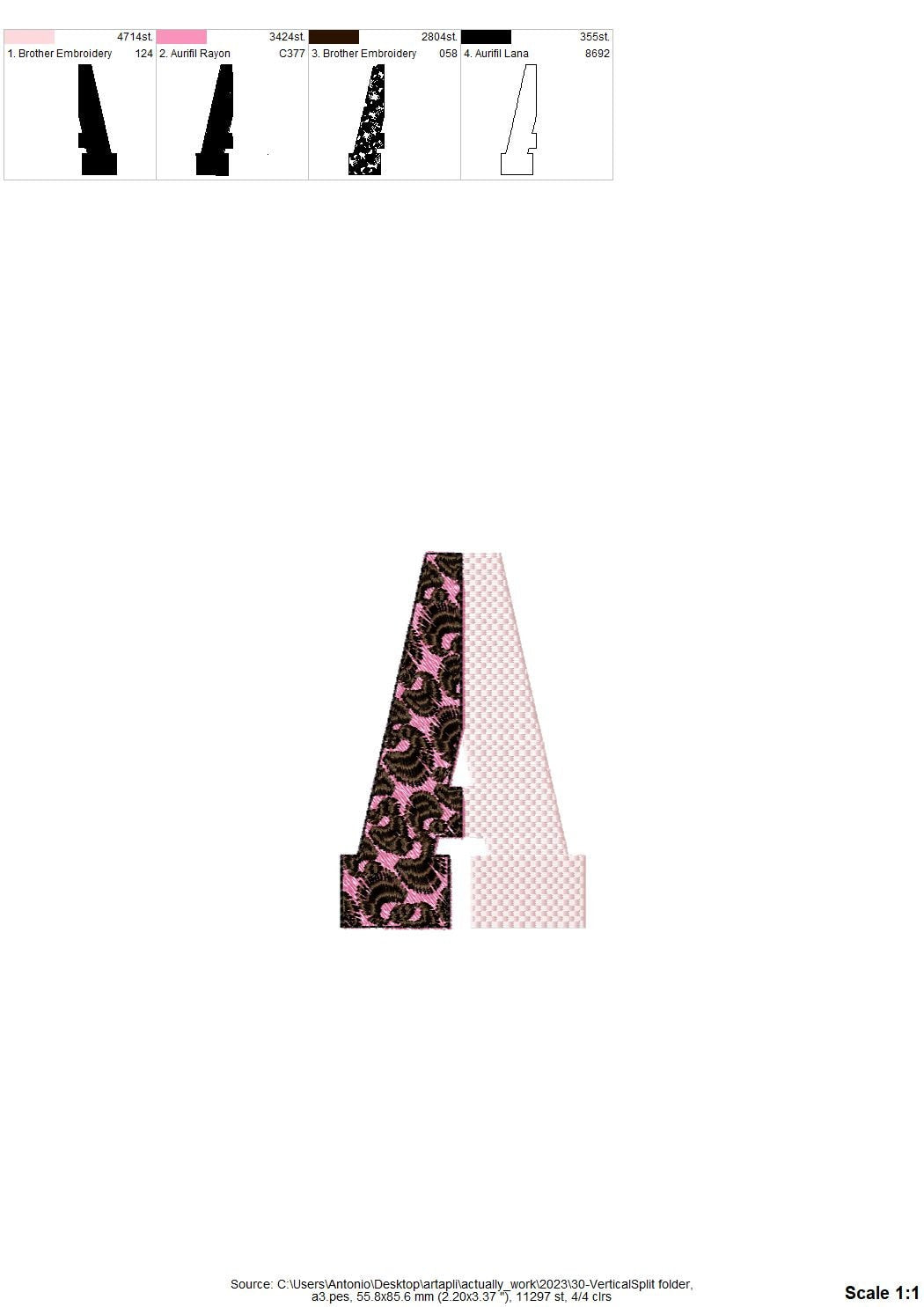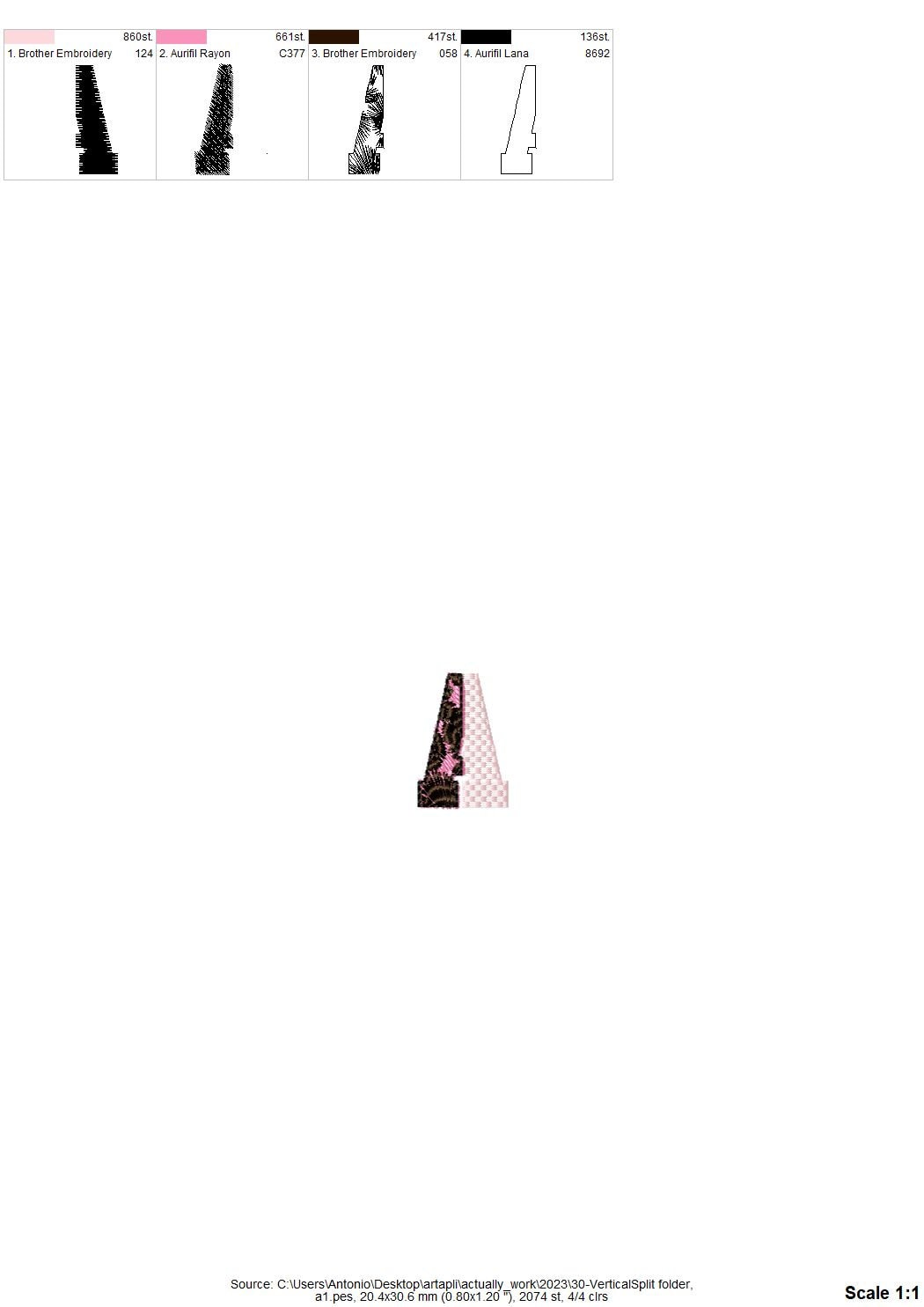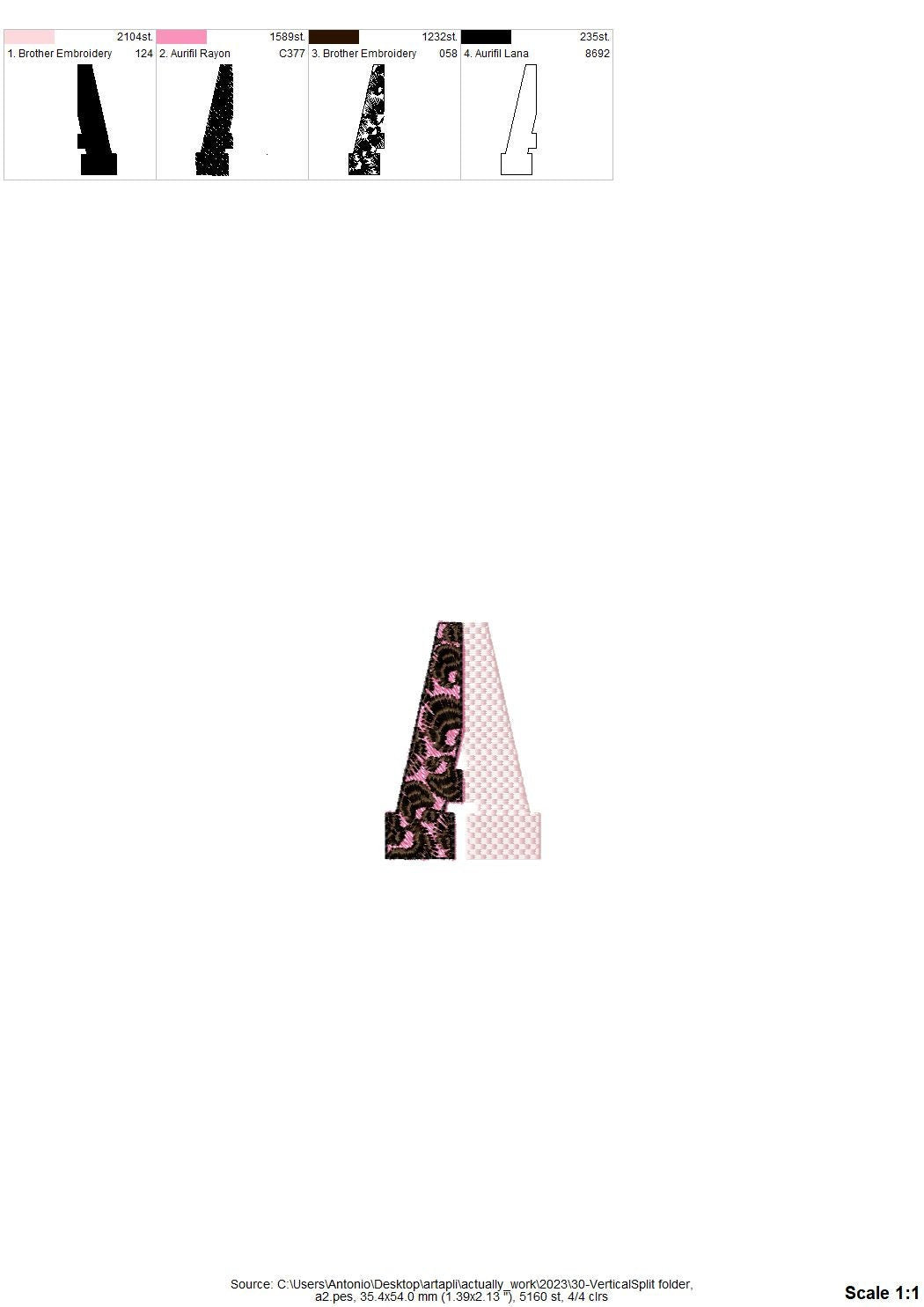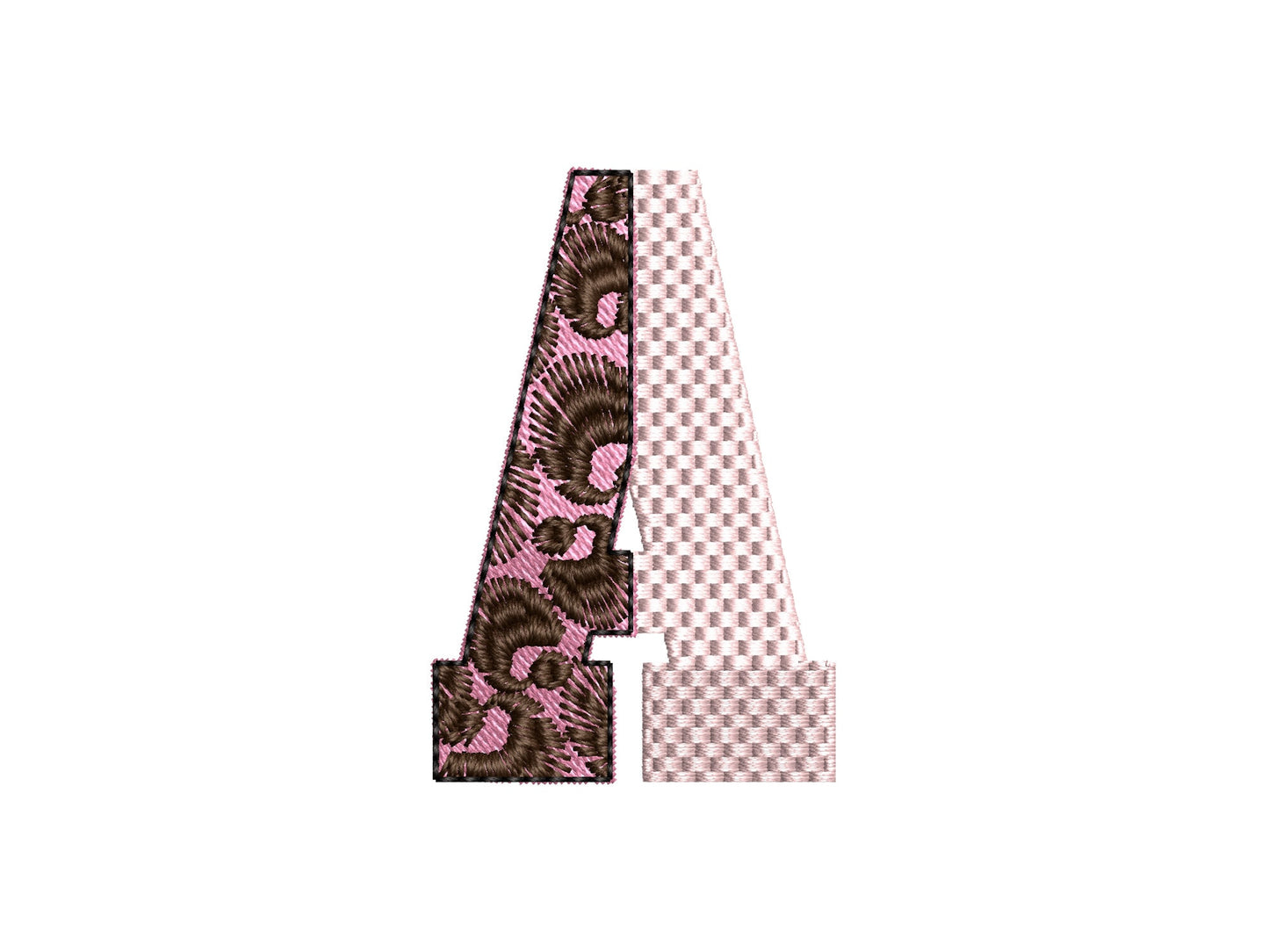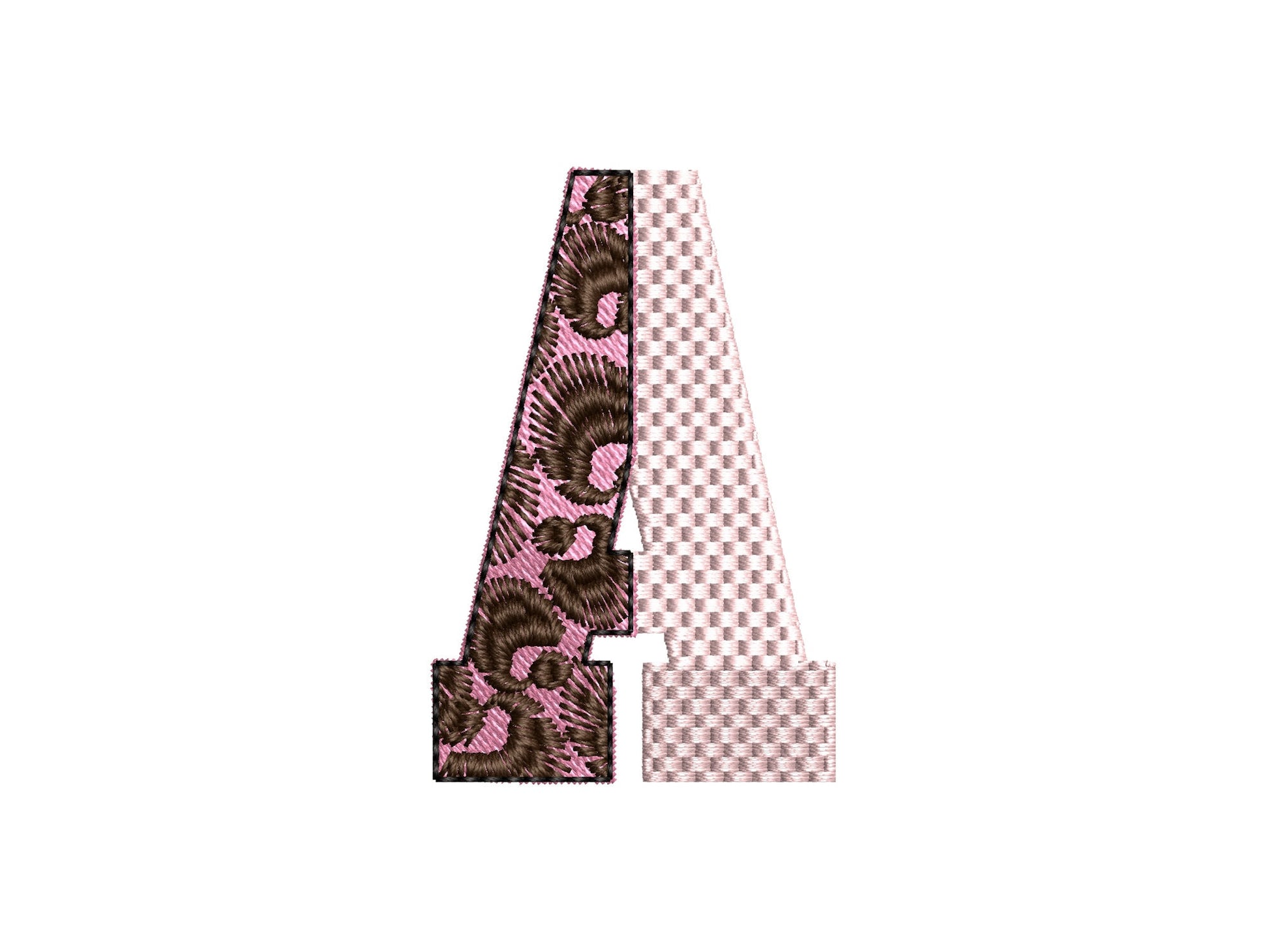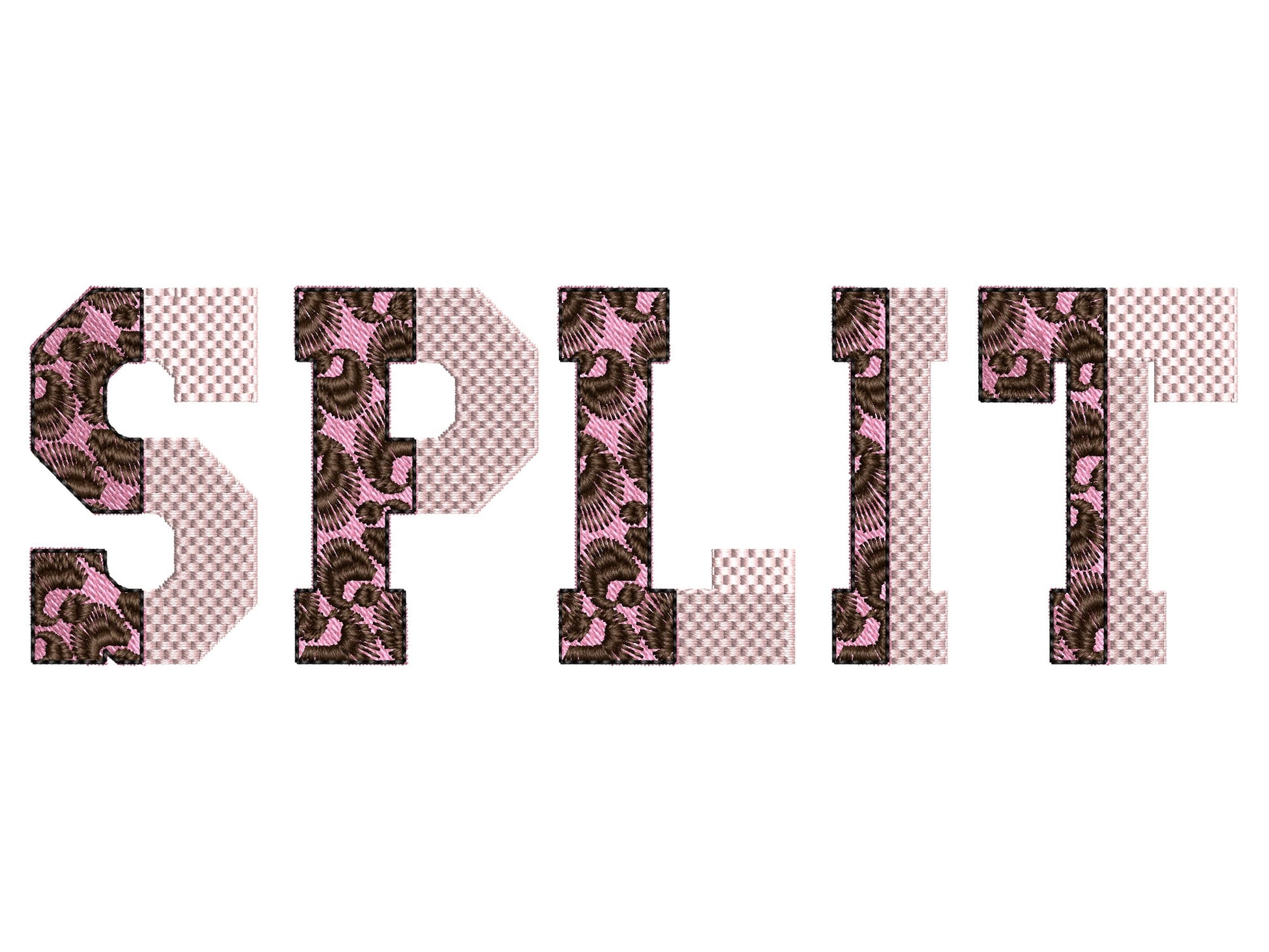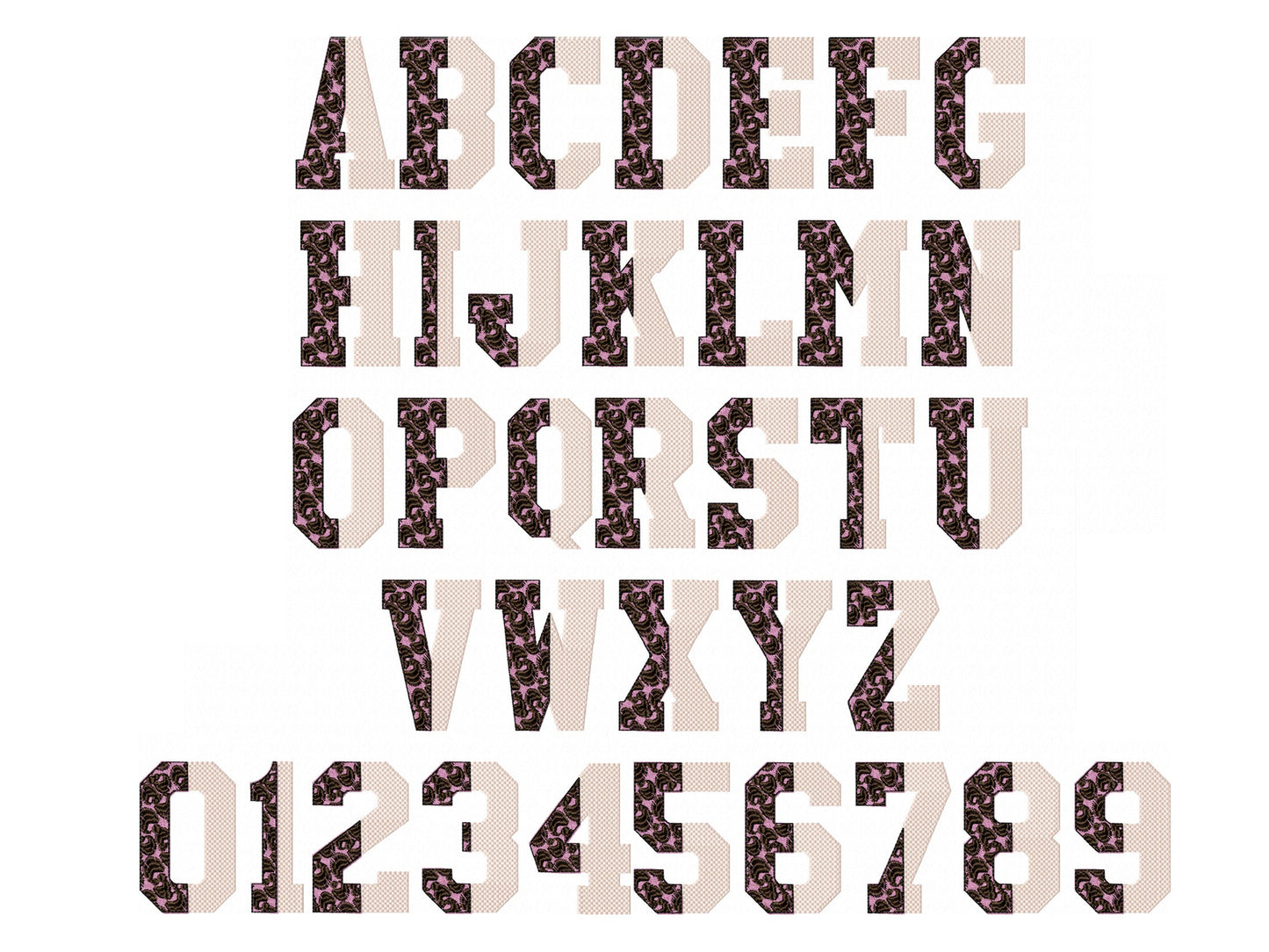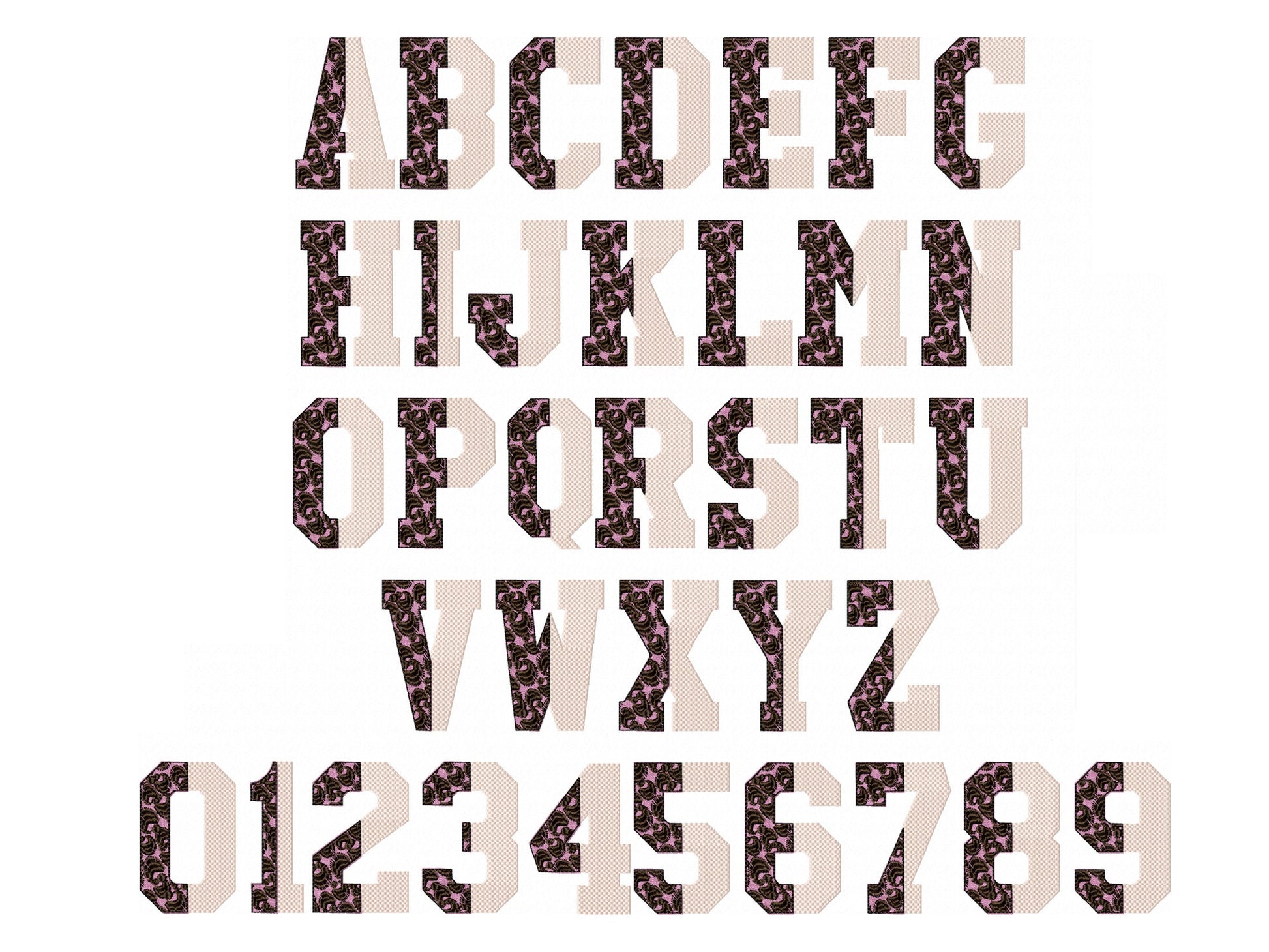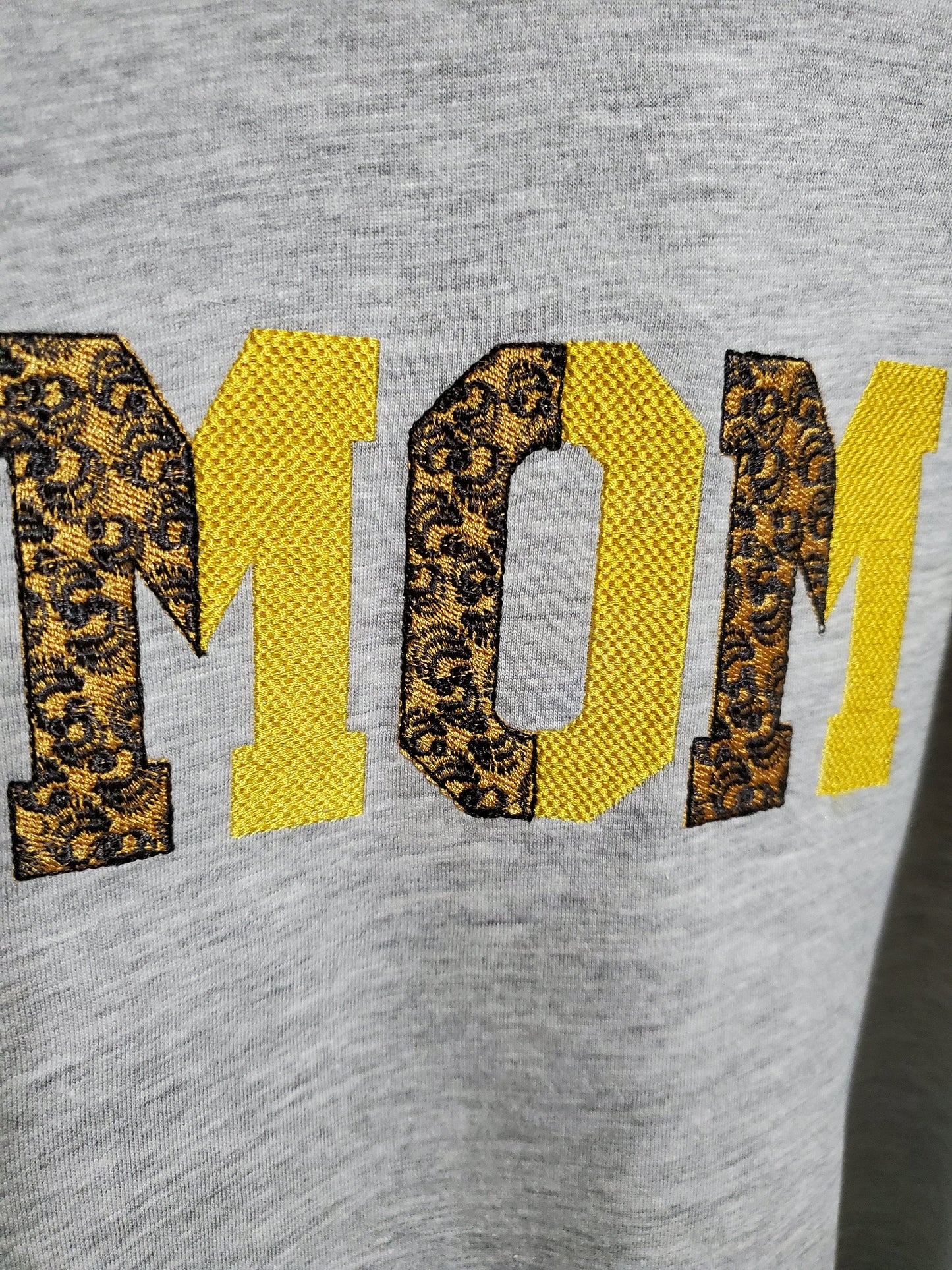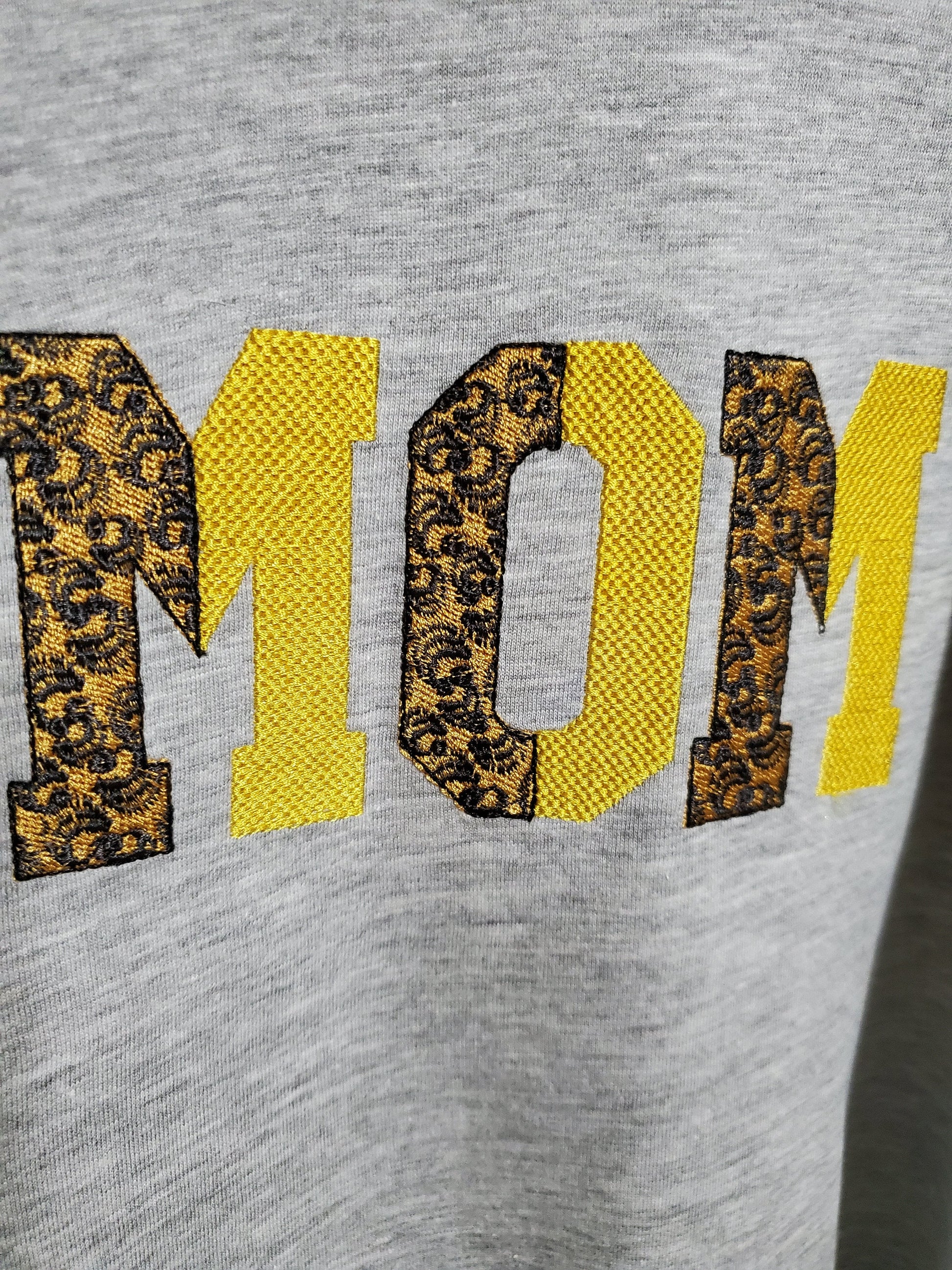
Vertical Split Font Leopard and Waffle Stitch
Or click to open the linkA block font split down the middle: leopard spots on one side and a textured waffle fill on the other. Stylish for shirts, bags and names.
Uppercase letters A to Z and numbers 0 to 9 in six sizes: 1, 1.5, 2, 2.5, 3 and 3.5 inches. Fill stitch design with embroidered leopard spots.
- Vertical split leopard and waffle font
- Uppercase A-Z, numbers 0-9